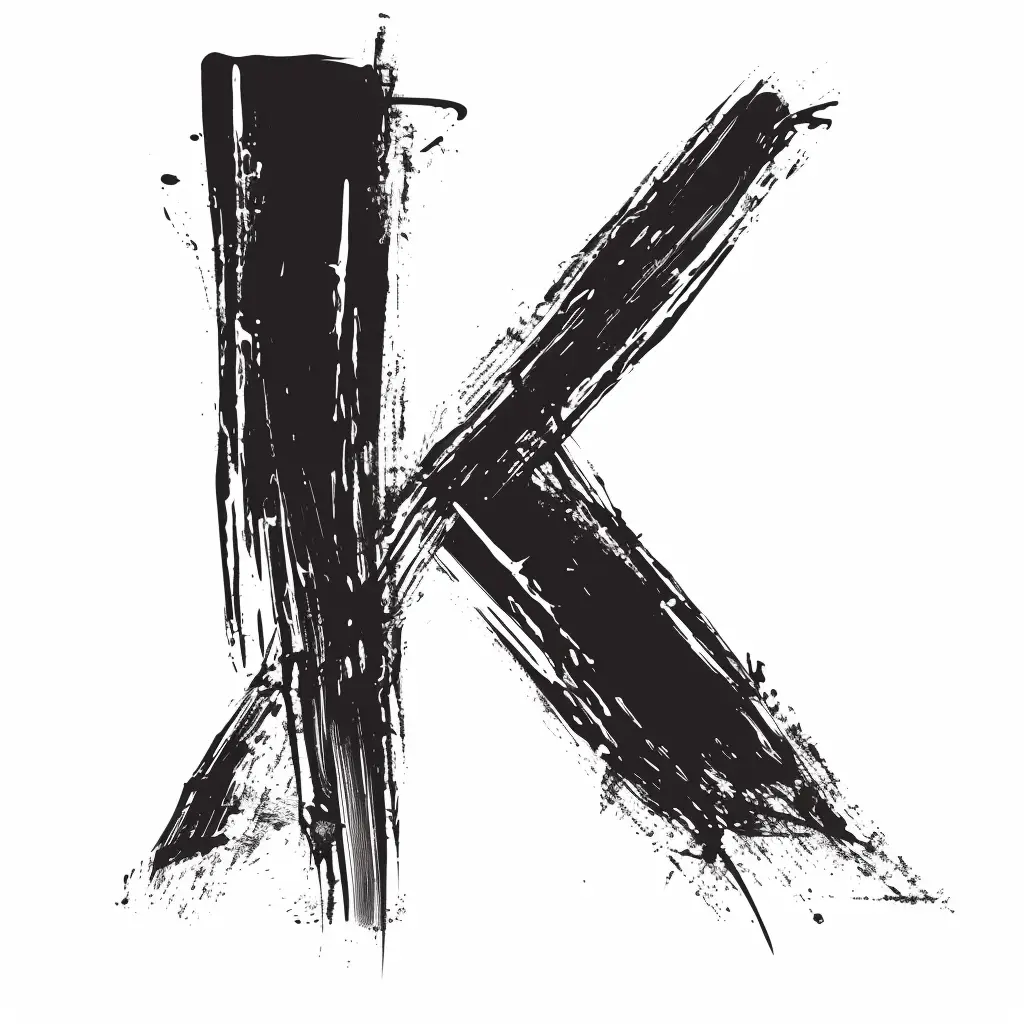
The image features a stylized letter "K" rendered in a rough, brushstroke-like black ink style against a plain white background. The letter has a textured, grungy appearance with uneven edges, splatters, and visible brush marks, giving it an artistic, hand-painted feel. The high contrast between the dark black of the letter and the light background emphasizes its bold, expressive design.